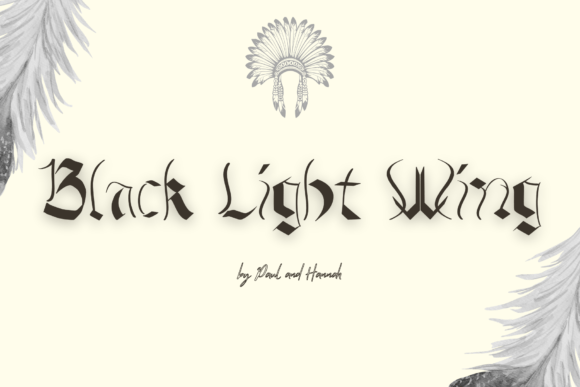
Black Light Wing Font: A Unique and Beautiful Typeface for Creative Projects
The Black Light Wing Font is a stunning typeface that has been crafted by modifying the author’s Black Wings font. The creator has skillfully changed some of the letter lines to achieve a lighter and more fluid look, resulting in a new font that is not only beautiful but also has its own distinct identity. This font is particularly well-suited for creative works that require a retro or vintage style, making it an excellent choice for designers and artists looking to add a touch of nostalgia to their projects.
The Story Behind Black Light Wing Font
The Black Light Wing Font is a derivative of the original Black Wings font, which has been a popular choice among designers for its bold and dramatic appearance. However, the creator of Black Light Wing Font wanted to experiment with the design and create a new font that would offer a fresh take on the classic typeface. By making subtle adjustments to the letter lines, the creator was able to achieve a lighter and more fluid look that is both elegant and sophisticated.
Key Features of Black Light Wing Font
The Black Light Wing Font boasts several key features that make it an attractive choice for designers and artists. Some of the notable features of this font include:
- Unique and distinctive design: The Black Light Wing Font has a one-of-a-kind design that sets it apart from other fonts. The subtle modifications to the letter lines have resulted in a font that is both beautiful and distinctive.
- Retro or vintage style: This font is particularly well-suited for creative works that require a retro or vintage style. The light and fluid lines of the font evoke a sense of nostalgia and can add a touch of classic charm to any project.
- High versatility: The Black Light Wing Font can be used for a wide range of creative projects, including posters, flyers, brochures, and more.
- Ease of use: This font is easy to read and can be used in a variety of contexts, making it a practical choice for designers and artists.
What Makes Black Light Wing Font Stand Out?
The Black Light Wing Font stands out from other fonts in several ways. Here are some of the key factors that make this font unique:
- Light and fluid lines: The subtle modifications to the letter lines have resulted in a font that is light and fluid, making it perfect for creative works that require a retro or vintage style.
- Beautiful and elegant design: The Black Light Wing Font has a beautiful and elegant design that makes it perfect for a wide range of creative projects.
- Unique and distinctive: This font has a unique and distinctive design that sets it apart from other fonts.
How to Use Black Light Wing Font?
The Black Light Wing Font is easy to use and can be applied to a wide range of creative projects. Here are some tips on how to use this font:
- Pair it with other fonts: The Black Light Wing Font can be paired with other fonts to create a unique and visually appealing design.
- Use it for headings and titles: This font is perfect for headings and titles, where its bold and dramatic appearance can make a big impact.
- Experiment with different colors: The Black Light Wing Font can be used with a variety of colors to create a unique and eye-catching design.
Benefits of Using Black Light Wing Font
The Black Light Wing Font offers several benefits to designers and artists. Some of the key benefits of using this font include:
- Unique and distinctive design: The Black Light Wing Font has a unique and distinctive design that can help designers and artists stand out from the crowd.
- Retro or vintage style: This font is perfect for creative works that require a retro or vintage style, making it an excellent choice for designers and artists looking to add a touch of nostalgia to their projects.
- Ease of use: The Black Light Wing Font is easy to read and can be used in a variety of contexts, making it a practical choice for designers and artists.
The Black Light Wing Font is a beautiful and unique typeface that is perfect for creative works that require a retro or vintage style. With its light and fluid lines, elegant design, and high versatility, this font is an excellent choice for designers and artists looking to add a touch of nostalgia to their projects. Whether you’re working on a poster, flyer, brochure, or any other creative project, the Black Light Wing Font is sure to make a big impact.
FAQs About Black Light Wing Font
Here are some frequently asked questions about the Black Light Wing Font:
- What is the Black Light Wing Font?: The Black Light Wing Font is a typeface that has been crafted by modifying the author’s Black Wings font.
- What makes the Black Light Wing Font unique?: The Black Light Wing Font has a unique and distinctive design that sets it apart from other fonts.
- What is the Black Light Wing Font best used for?: This font is particularly well-suited for creative works that require a retro or vintage style.